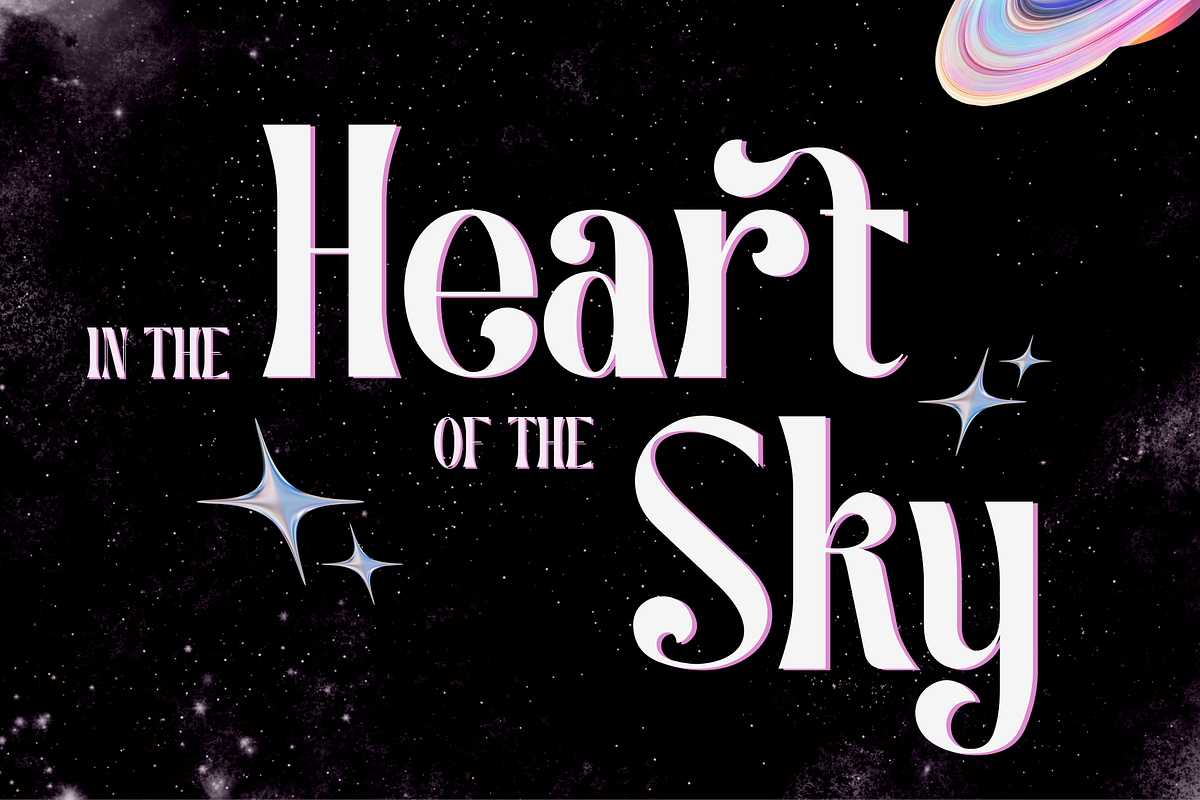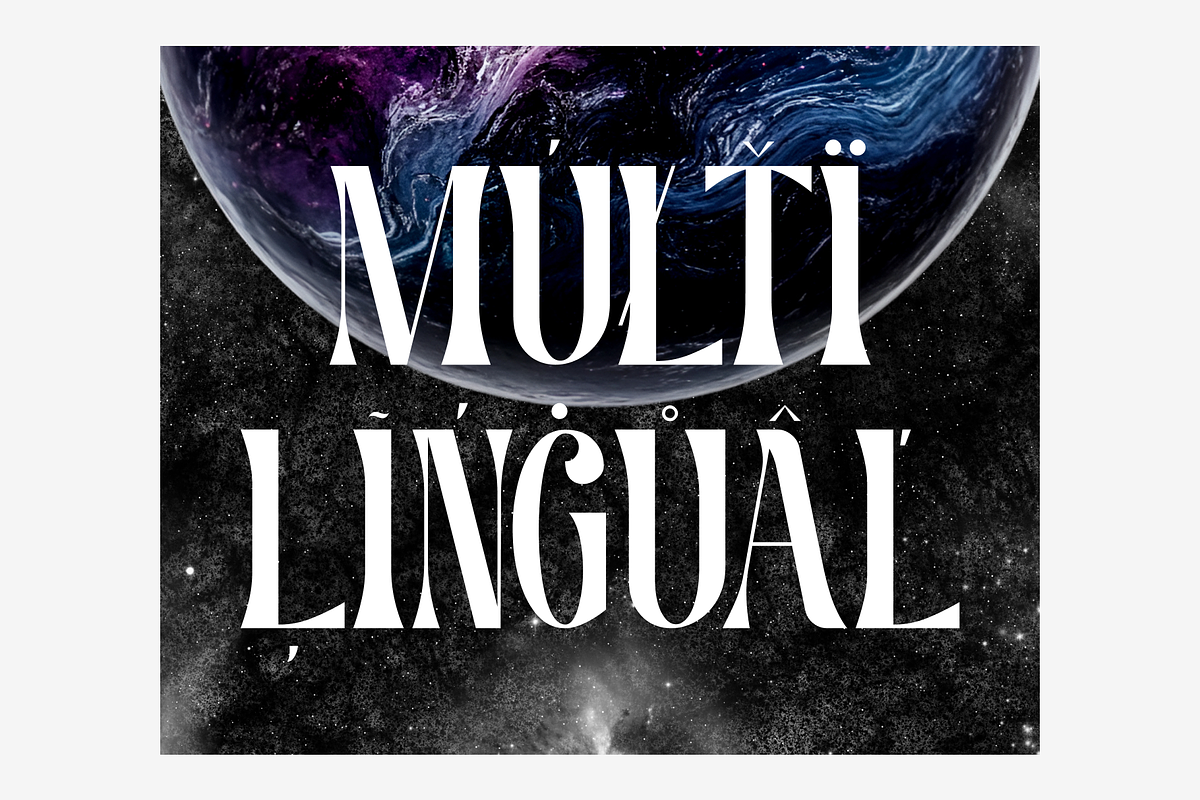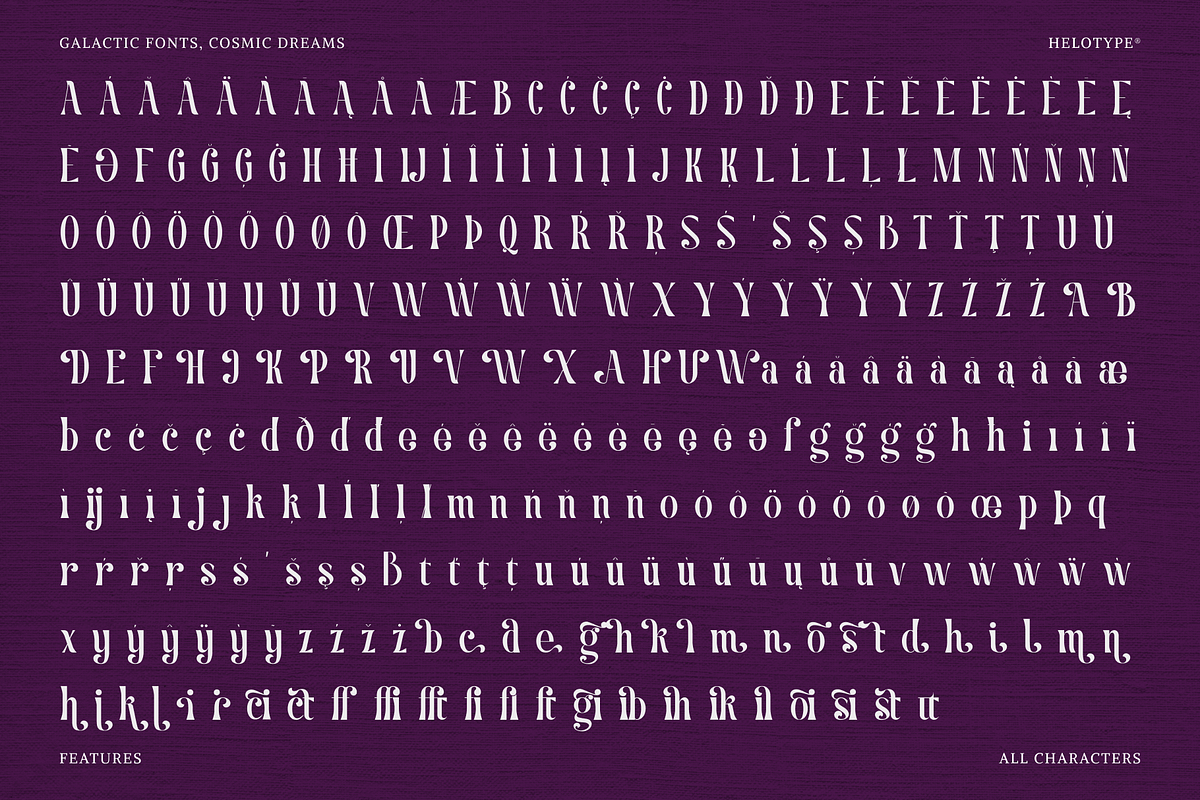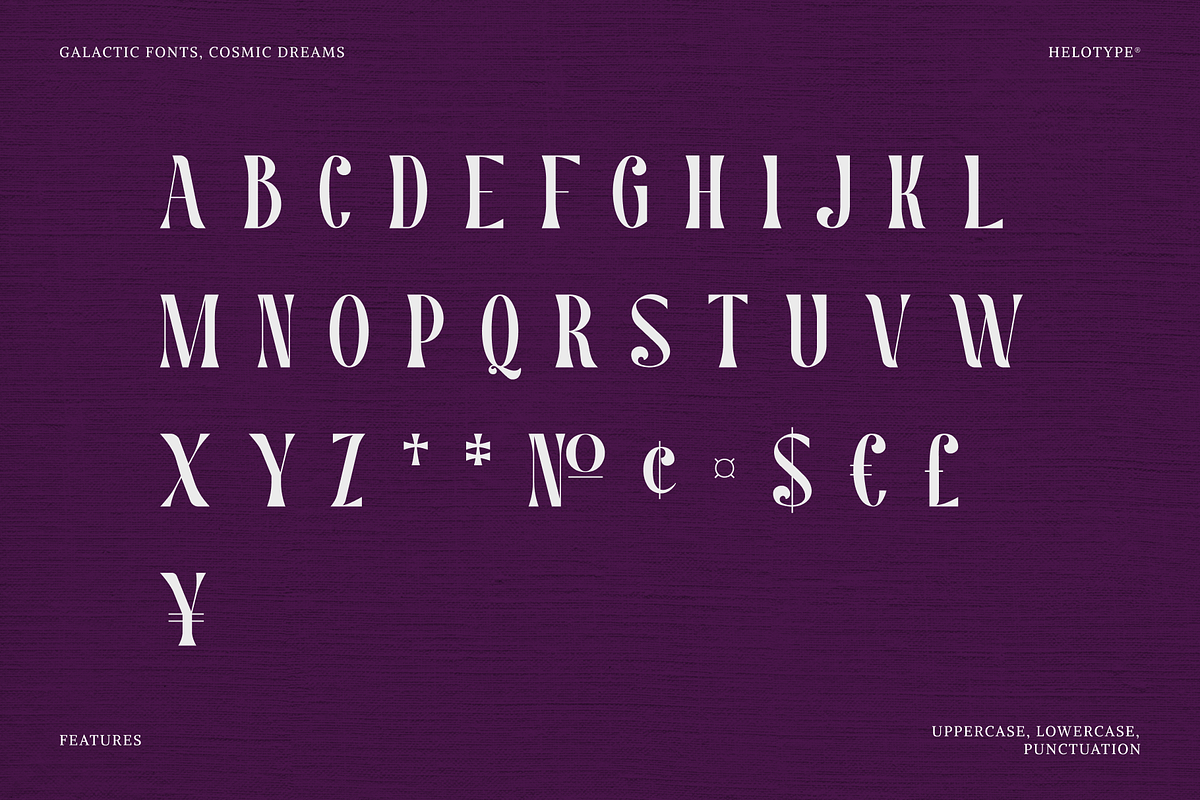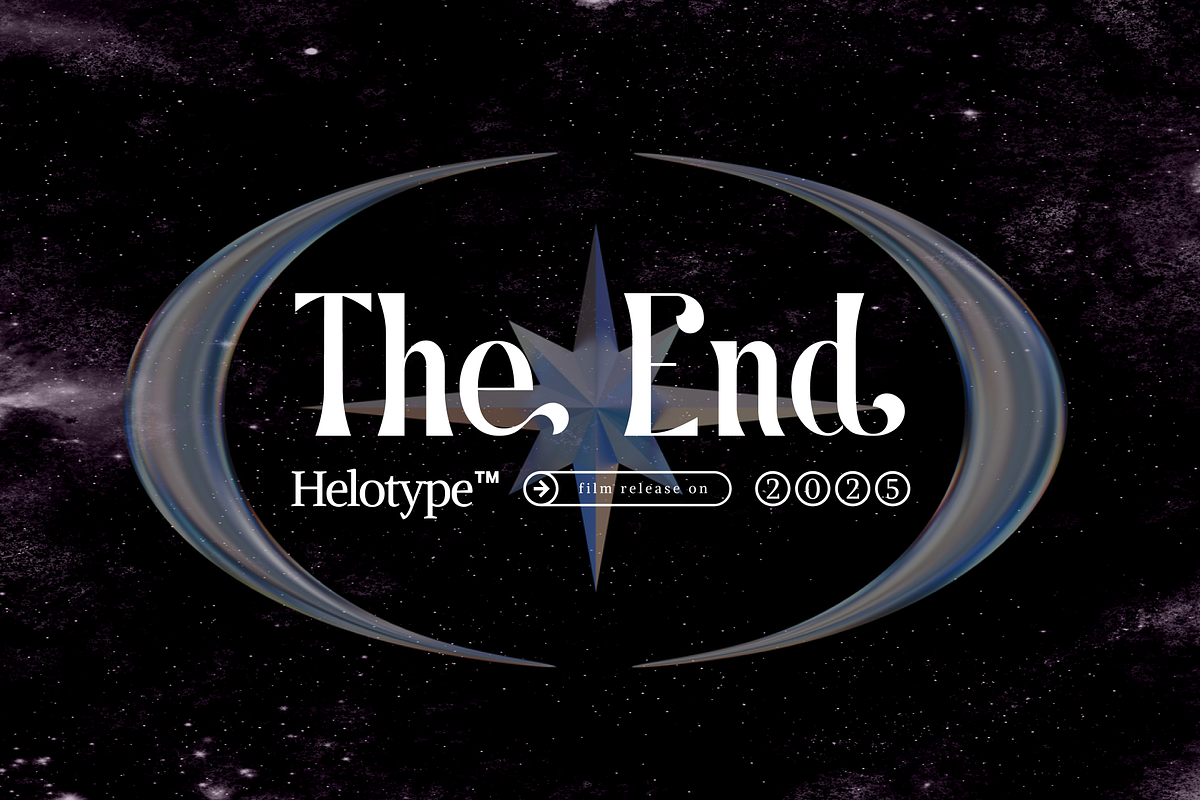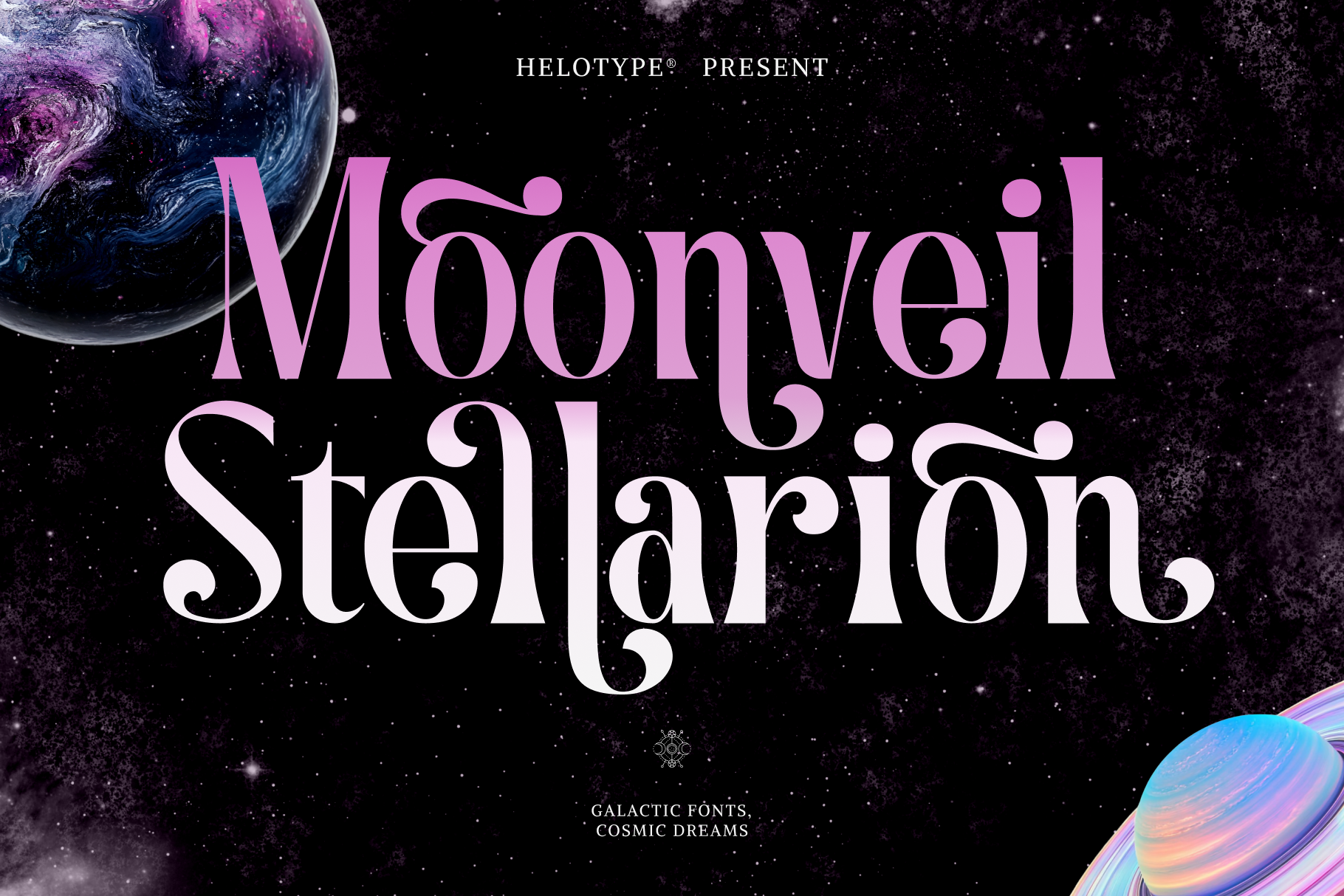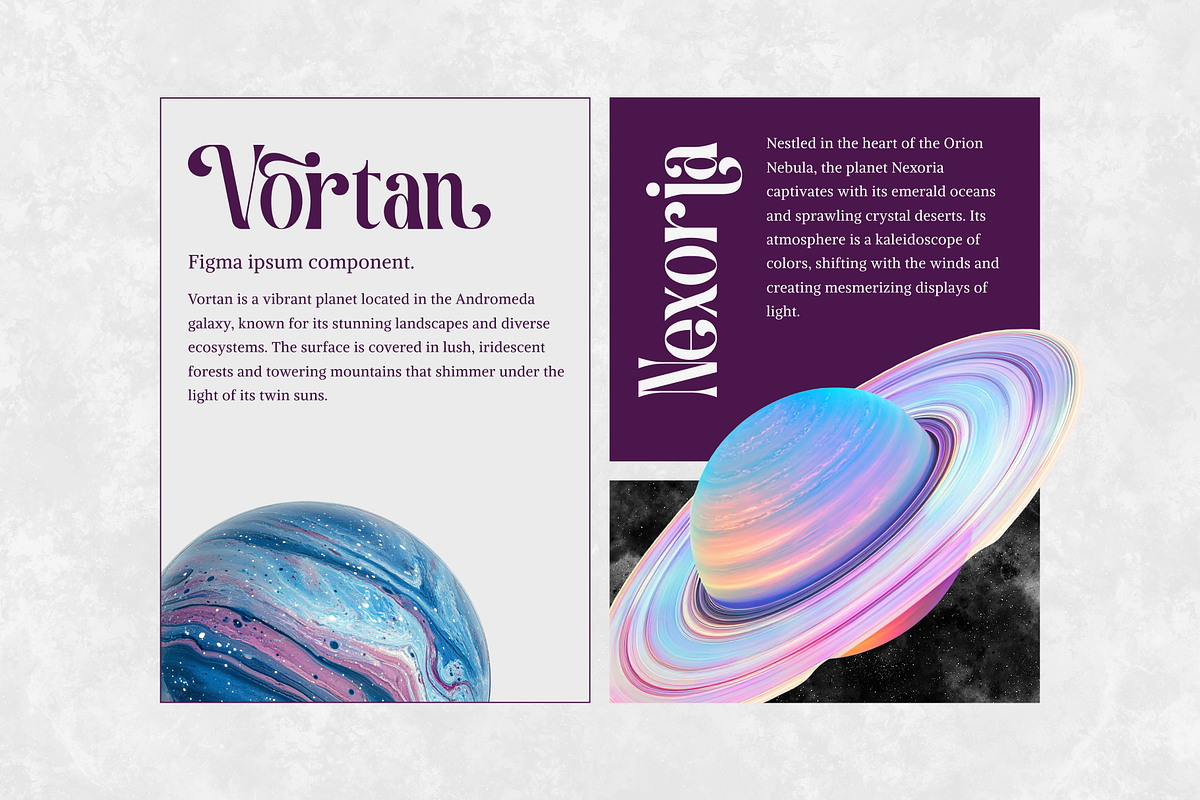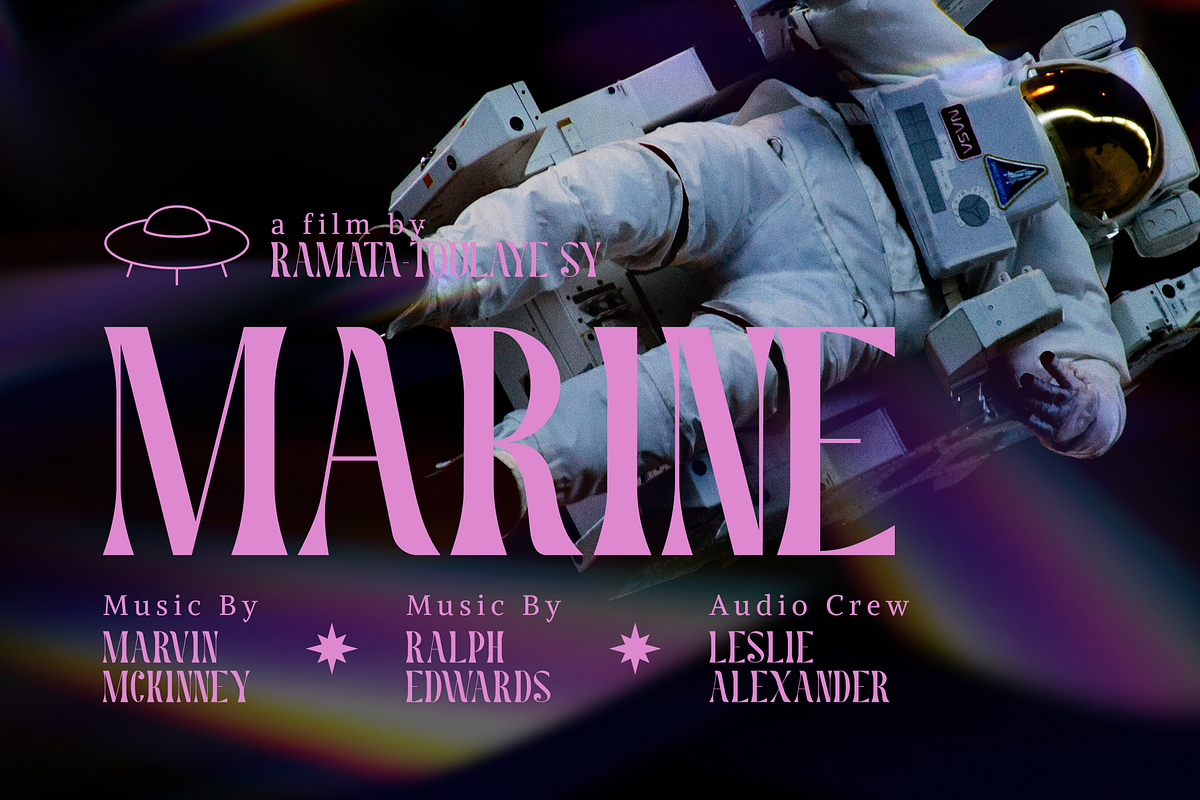
Moonveil Stellarion: Dream Font
Step into a cosmic wonderland with Moonveil Stellarion, a magical font inspired by the mysteries of the universe. Perfect for any project that calls for a touch of elegance and cosmic allure, this font features sleek curves and starry accents, bringing a celestial vibe to your designs. Whether you're creating captivating posters, dreamlike branding, or an out-of-this-world logo, Moonveil Stellarion will make your content shine like the stars.
- Ligature and alternates feature